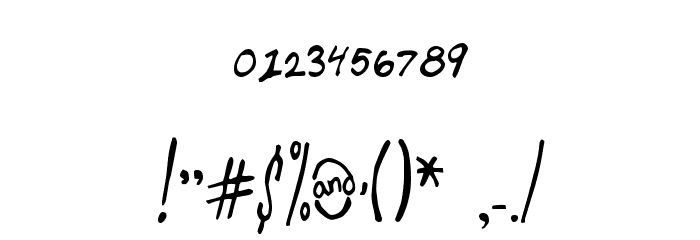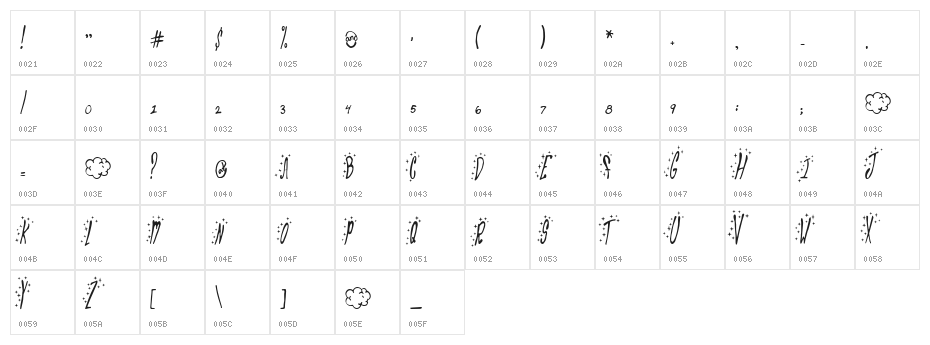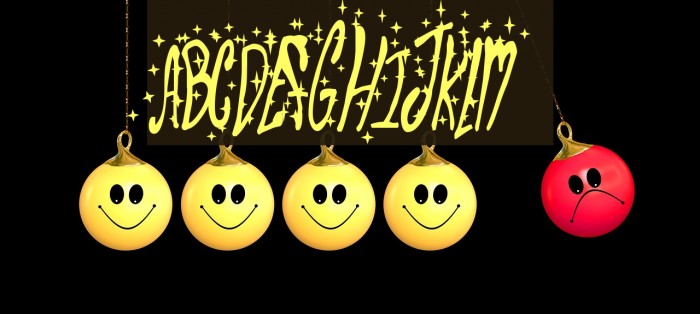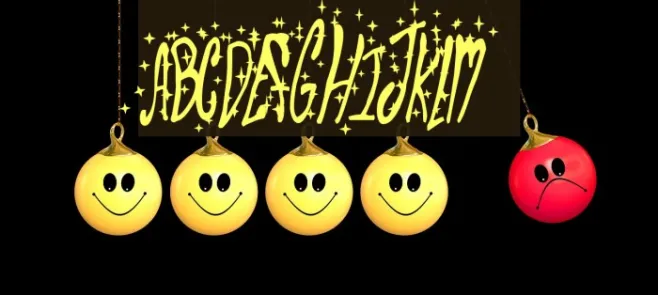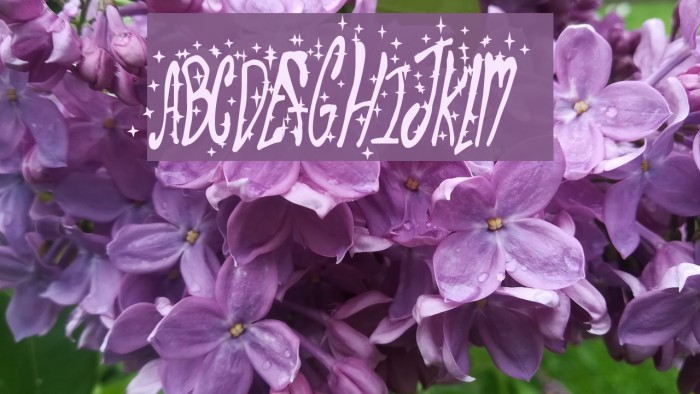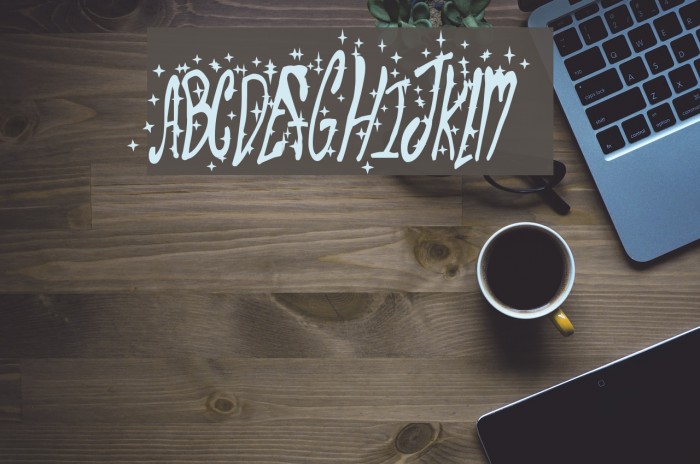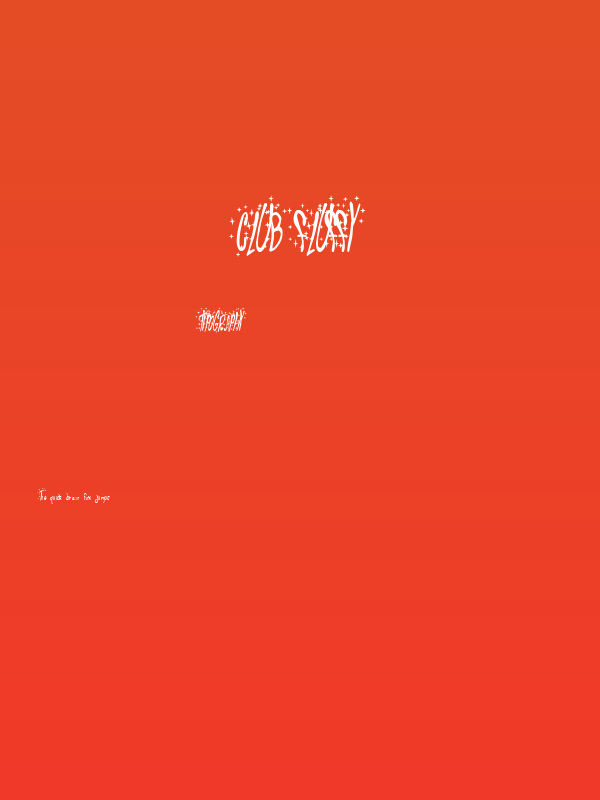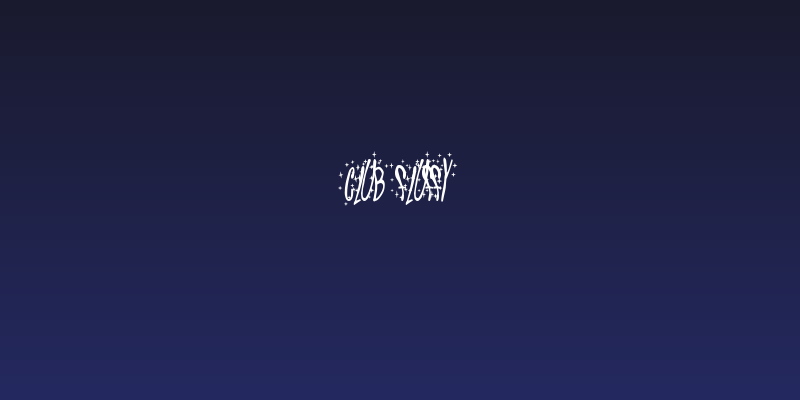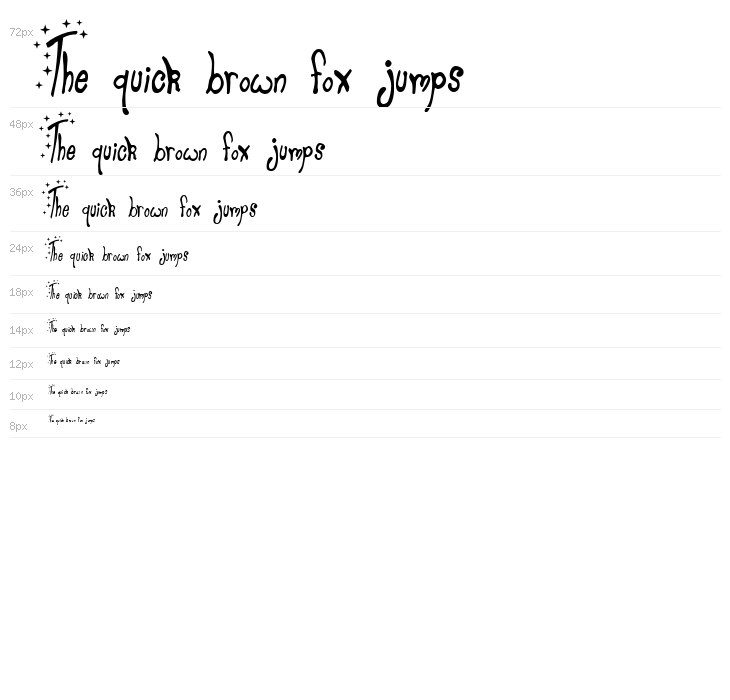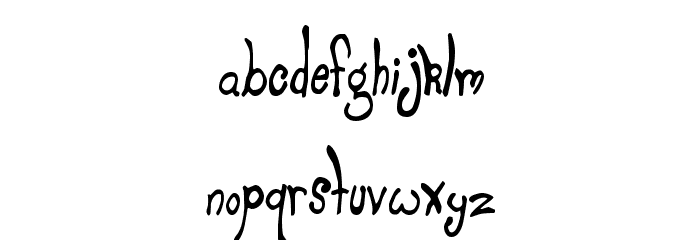
Club Fluffy Font
Club Fluffy Description
This font features a whimsical and playful design, characterized by its elongated and slightly irregular letterforms. The uppercase letters are adorned with star-like embellishments, adding a magical and decorative touch. The lowercase letters maintain a consistent style, with a hand-drawn appearance that exudes a sense of fun and creativity. The numerals and special characters follow the same playful aesthetic, making the font suitable for projects that require a unique and eye-catching look. Its distinct style makes it ideal for use in children's books, party invitations, or any design that aims to capture a sense of wonder and imagination.
| Use Case | Headlines, Logos, Decorative text |
| Proposed Projects | Children's books, party invitations, fantasy-themed designs, playful branding. |